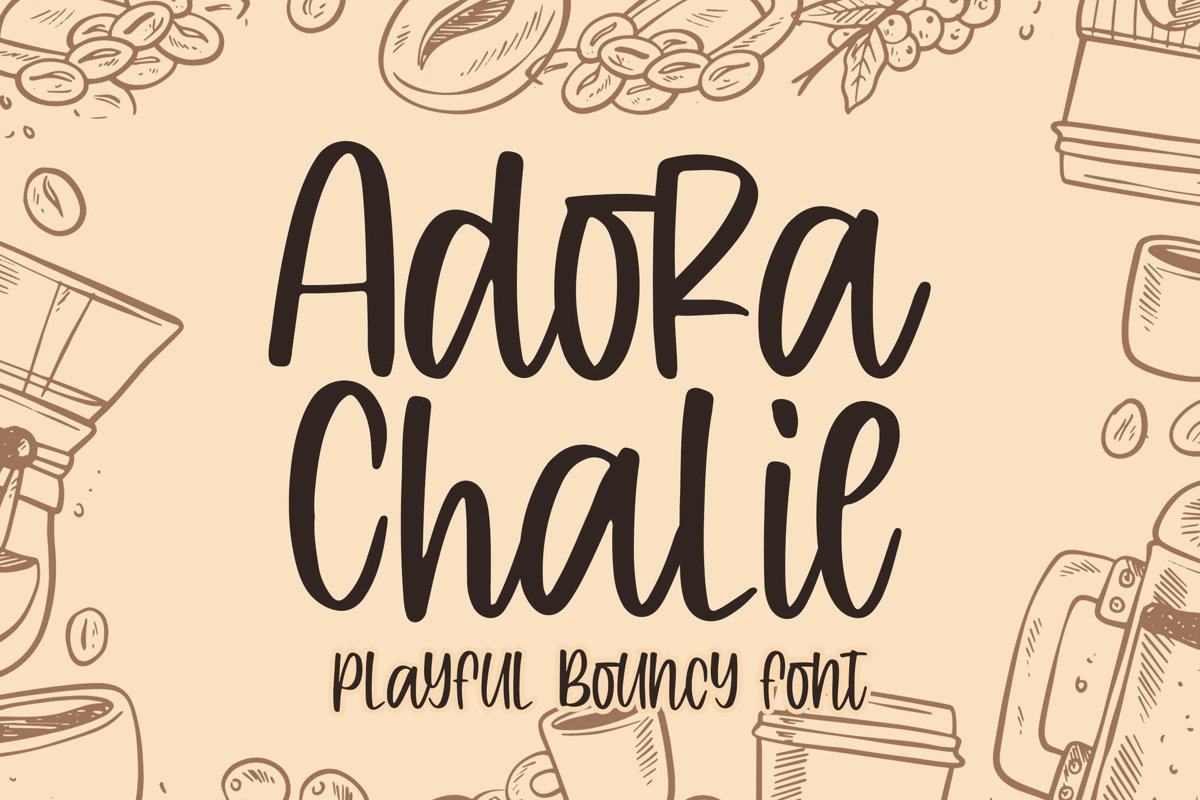
Introducing of our new product the name is Adora Chalie Playful Bouncy Font. Adora Chalie inspired by modern calligraphy this font is a fun theme very good for Calligraphy serif, poster, food, wedding, branding etc
MULTILINGUAL ACCENT :ŽžŠŒšŸÀÁÂÃÄÅÆÇÈÉÊËÌÍÎÏÐŁÑÒÓÔÕÖØÙÚÛÜÝßàáâãäåæçèéêëìíîïłñòóôõöøùúûüýÿ